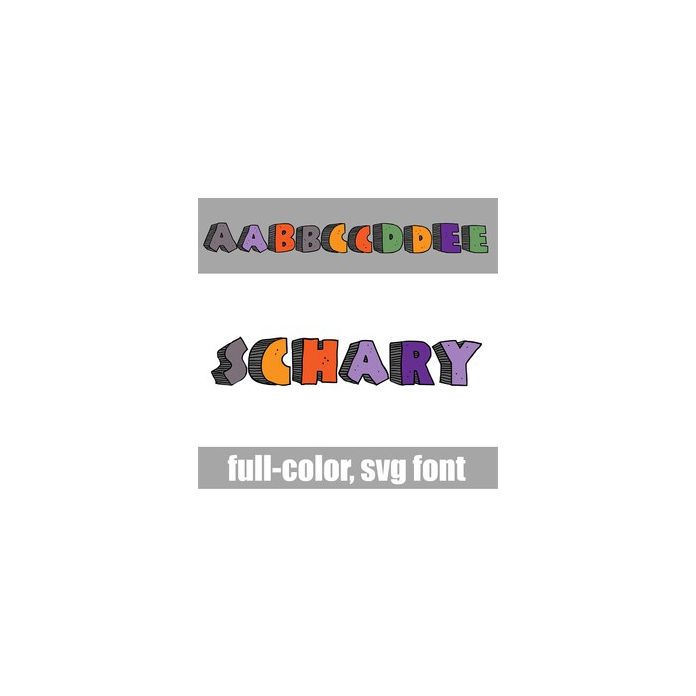
This hand-crafted, 3d font has a lot of fun texture and is brimming with a Halloween color palette. There is an alt case w/ additional colors you can access through your system or Silhouette's glyph map.